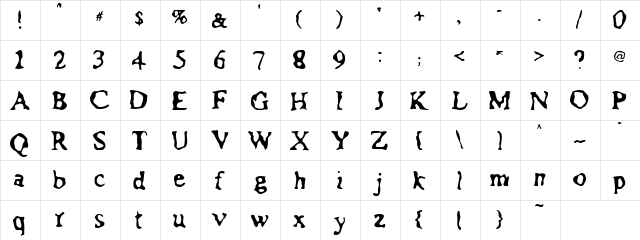
Assimilation Regular
Design Context for Assimilation Typeface
Assimilation is a composed and adaptable typeface that performs quietly and consistently across a wide range of design contexts.